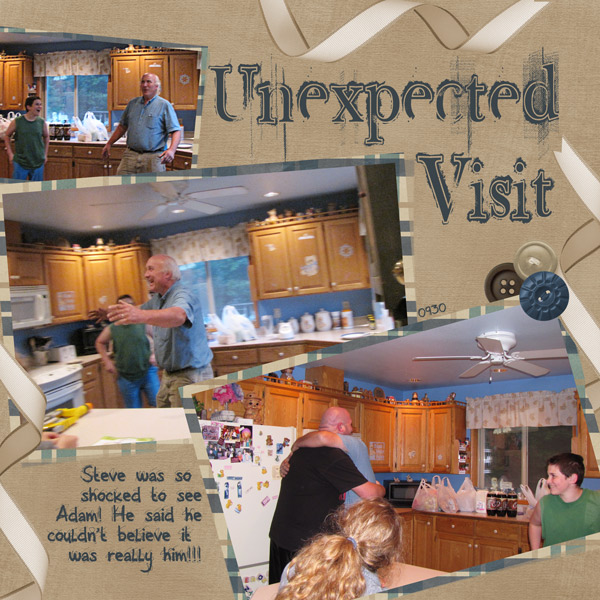
18. Retro Rock Poster
I was taking a stroll through dafont.com and came across this font, and thought it might look good on a layout. This is for all you guys and gals that love grunge!